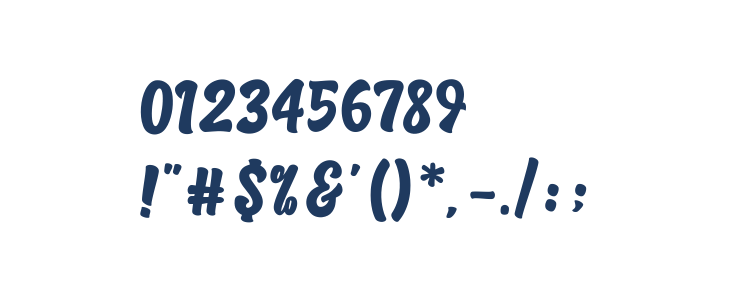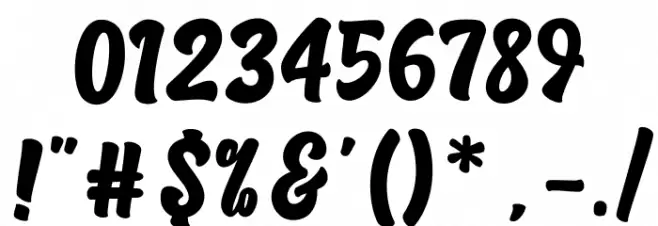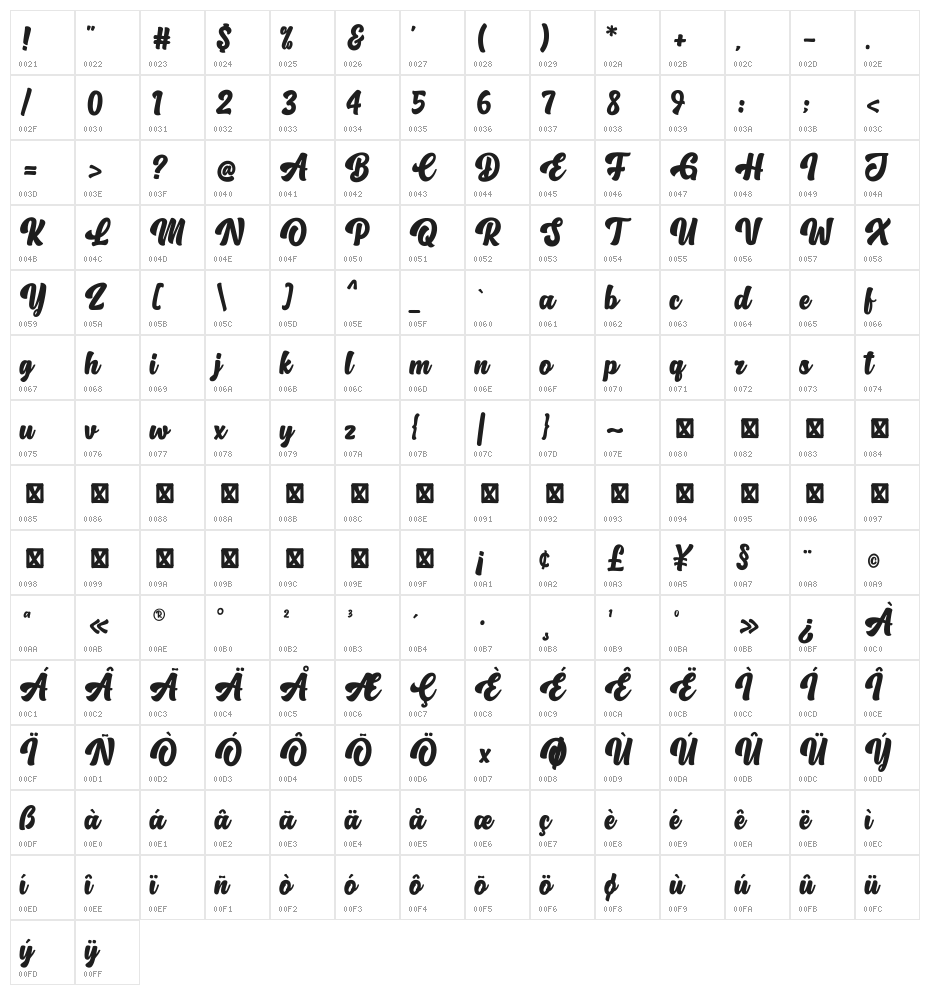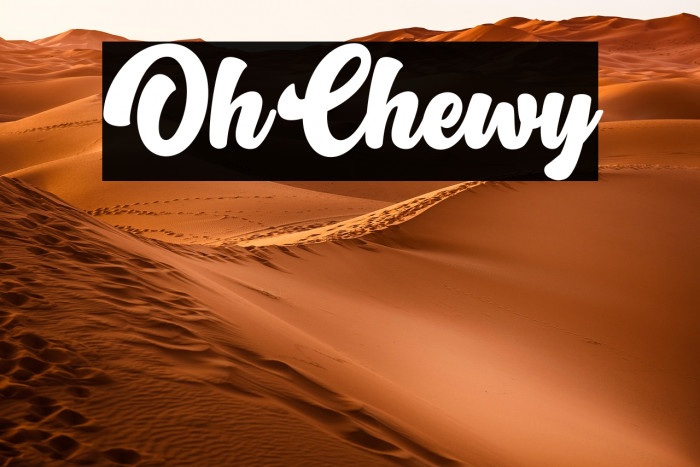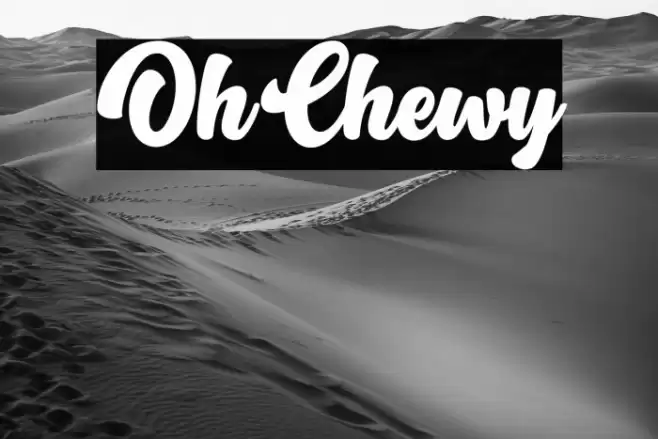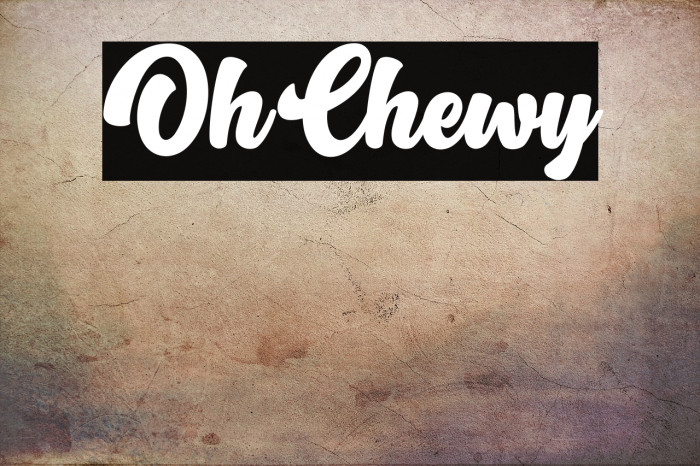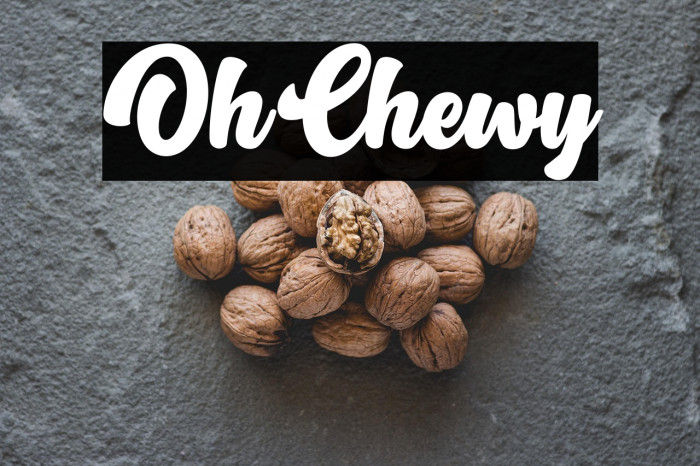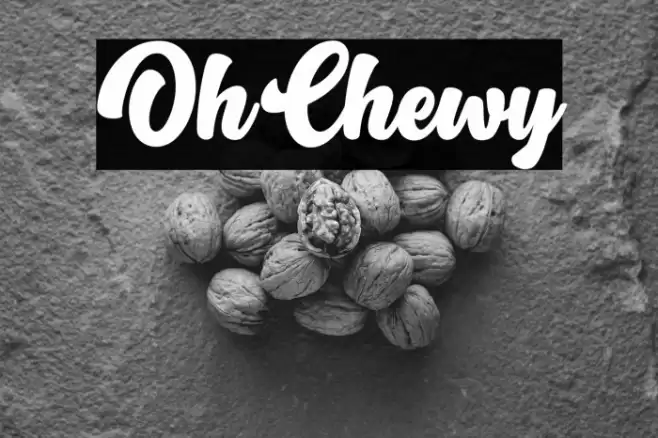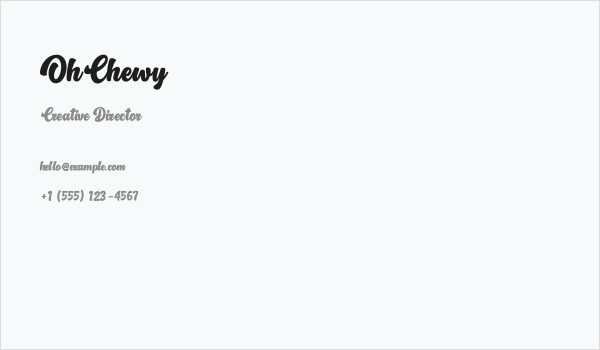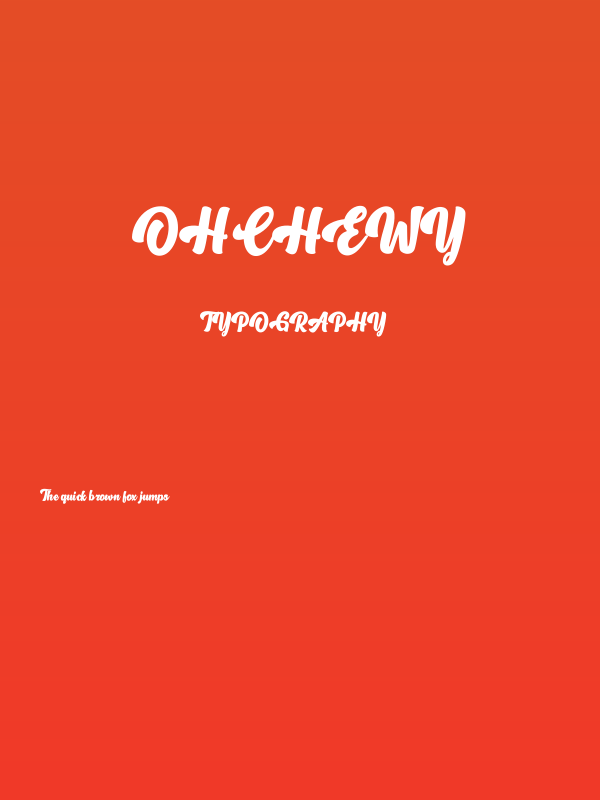
OhChewy Font
OhChewy Description
This font features a bold and playful script style with smooth, flowing curves and a lively character. The letters are connected, giving it a handwritten feel, while maintaining a consistent thickness throughout. The uppercase letters are slightly larger and more pronounced, adding emphasis and flair. The lowercase letters are rounded and compact, contributing to its friendly and approachable appearance. The numbers and special characters follow the same design principles, ensuring uniformity across all elements. This font is ideal for projects that require a touch of whimsy and creativity.